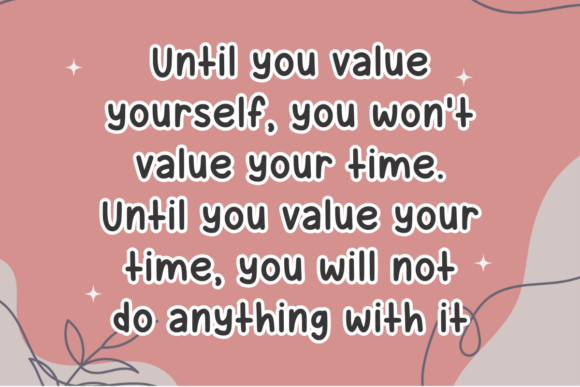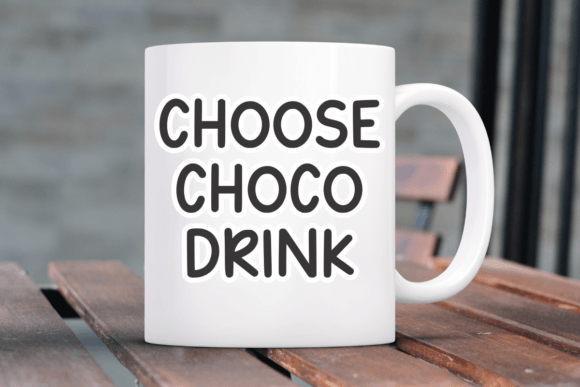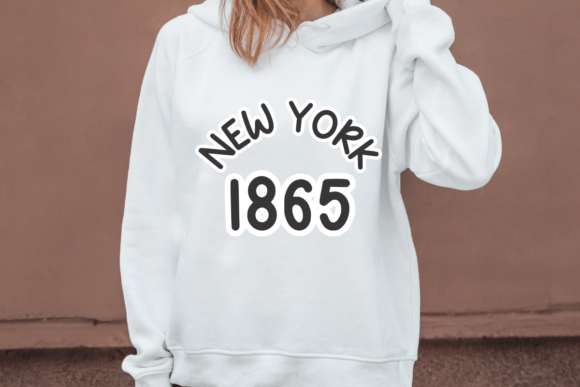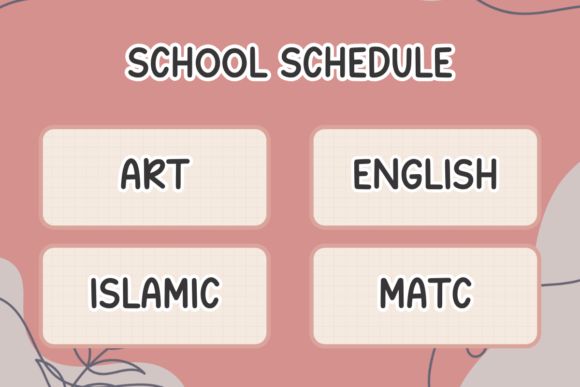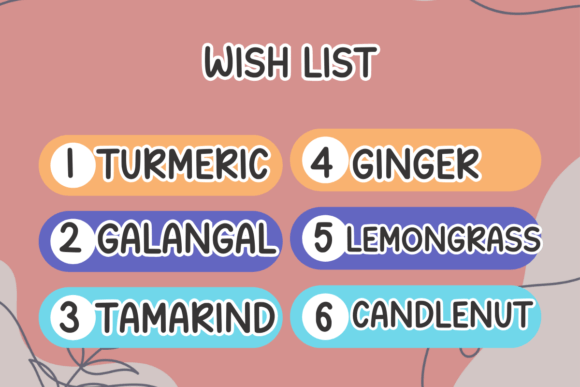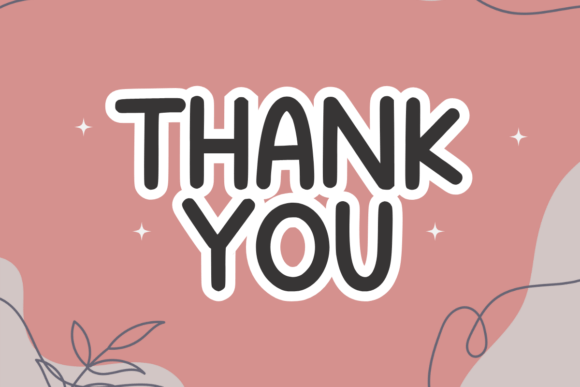
Introduction to Real Story Font
Do you ever get that moment when you’re working on a creative project and everything just clicks into place? You’ve got the perfect idea, the perfect colors, and the perfect font. For designers, finding that elusive perfect font can be the difference between a project that’s just good and one that’s truly exceptional. That’s why we’re excited to introduce you to the Real Story Font, a sweet and friendly handwritten font that’s sure to become your go-to design resource.
With its natural and unique style, the Real Story Font is incredibly versatile and can be used in a wide range of creative projects. Whether you’re working on a blog post, a social media campaign, or a business logo, this font is sure to add a touch of warmth and personality to your design. And the best part? You can download it for free, complete with a transparent background, so you can use it in any design without worrying about background issues.
What makes the Real Story Font truly valuable for designers is its high-quality design and versatility. It’s perfect for designers who want to add a human touch to their projects without sacrificing professionalism. With the Real Story Font, the possibilities are endless, and we can’t wait to see what you create with it!
Key Features of Real Story Font
- High-quality font design: Real Story Font offers a unique and stylish design perfect for creative projects.
- Transparent background: Real Story Font has a transparent background, allowing for seamless integration into various design elements.
- Size and resolution: Available in a standard font size, suitable for a wide range of creative projects, with a high-resolution design for crisp and clear display.
- Unique characteristics: Real Story Font features a distinctive and modern design, ideal for designers seeking a unique touch for their creative projects.
- Design versatility: This font is suitable for various design applications, including logos, graphics, and typography-based creative projects.
Honest Review: Real Story Font
I recently stumbled upon the Real Story Font, a free download that has caught my attention in the design world. As a designer, I’m always on the lookout for high-quality resources that can elevate my creative projects.
Here are some things that work well for the Real Story Font: ✨
- Unique style and aesthetic: The font has a distinctive feel that sets it apart from other sans-serif fonts.
- High-quality design: The font is well-crafted and looks great at various sizes and resolutions.
- Transparent background: The font has a transparent background, making it easy to layer over images or other design elements.
However, I do have some reservations: ⚠️
- Limited character set: The font only includes a limited set of characters, which may not be suitable for projects that require a full character set.
- No bold or italic styles: While the font has a distinctive style, it would be great to have bold and italic variations for added emphasis.
Overall, the Real Story Font is a solid addition to any designer’s toolkit. Its unique style and high-quality design make it a great choice for creative projects. While it has some limitations, it’s definitely worth considering for your next design project.
Use the Real Story Font on a transparent background to create a modern and sleek design. Experiment with different font sizes and styles to add visual interest to your project.
The Real Story Font is perfect for a variety of projects, including:
Business cards
Brochures
Posters
Websites
Q: Does the Real Story Font have a transparent background?
Yes, the Real Story Font is designed with a transparent background, making it easy to layer over images or other design elements. This feature allows for greater flexibility and creativity in your design projects.
Q: What is the resolution of the Real Story Font?
The Real Story Font is available in high resolution, making it suitable for use in a variety of design contexts, from print to digital applications. The font’s high quality ensures that it will display clearly and crisply, even at larger sizes.